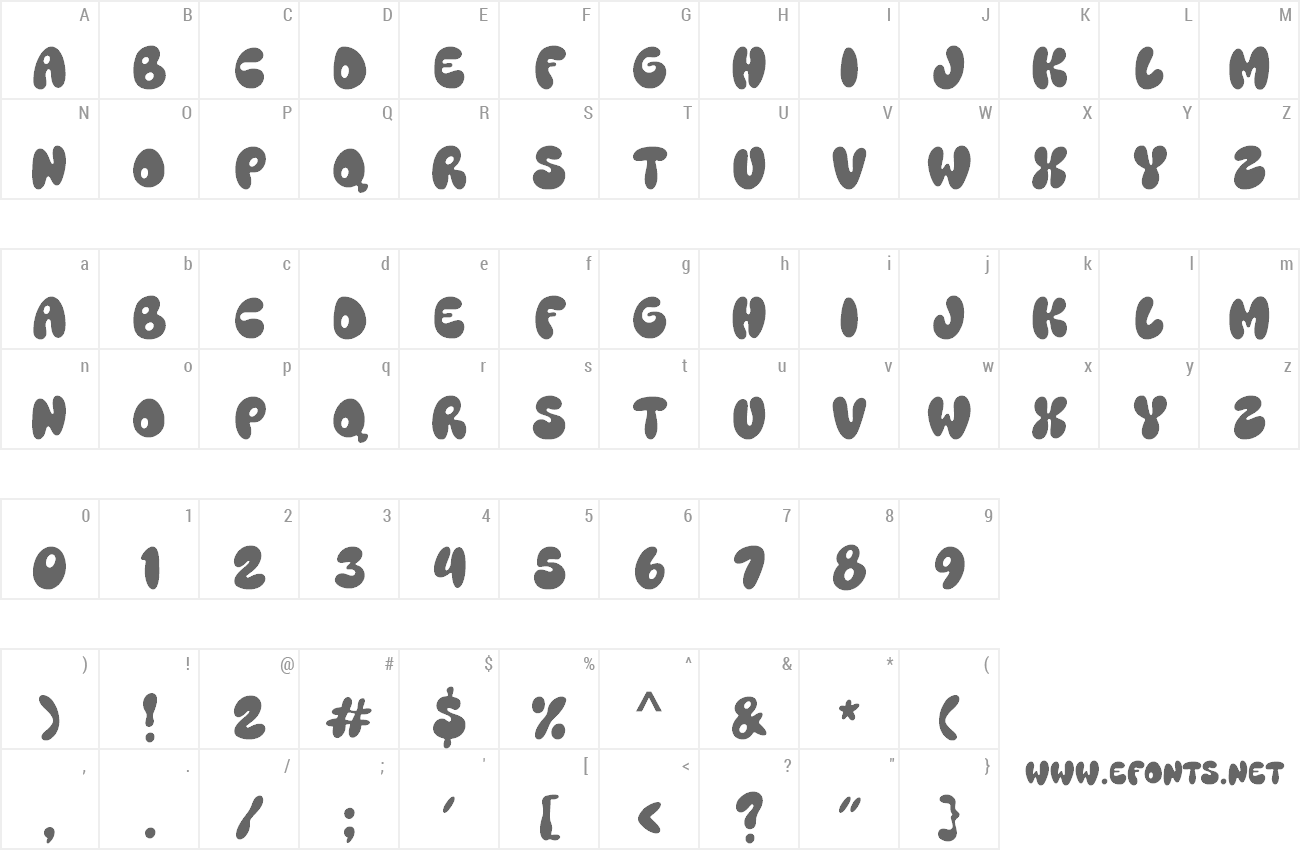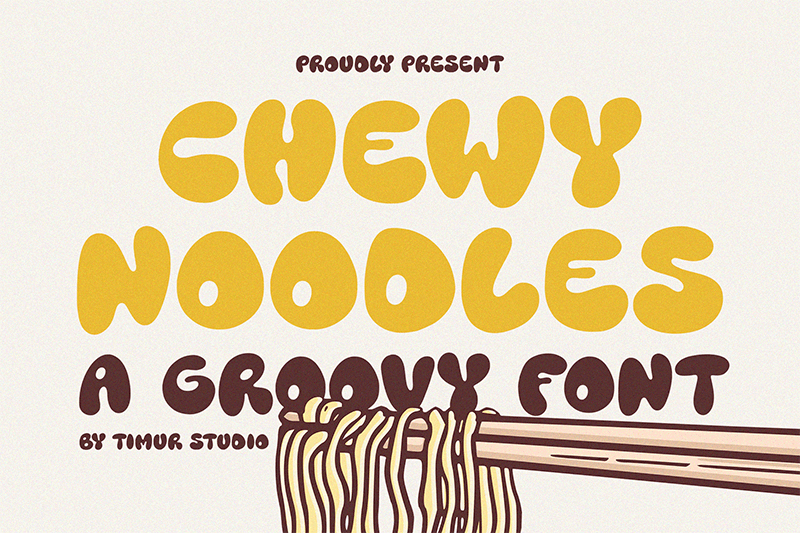
Introduced by Timurtype Studio! Chewy Noodles is a Groovy Font This font is a retro and vibrant choice for your design projects. With its funky and playful letterforms, this font captures the essence of the groovy era. The bold and exaggerated strokes give the Chewy Noodles font a lively and energetic aesthetic, perfect for adding a retro and nostalgic touch to your branding materials, posters, and album covers. Whether you're aiming for a vintage and psychedelic look or a fun and lighthearted vibe, the Chewy Noodles font offers versatility and charm. Embrace the groovy energy of the Chewy Noodles font and transport your designs back to the colorful and vibrant era of the past These fonts include: OTF TTF WOFF Chewy Noodles Font also supports multilingualism Chewy Noodles Font features premium : -Full Set of standard alphabet and punctuation By installing or using this font, you are agree to the Product Usage Agreement: � This demo font is ONLY for PERSONAL USE. NO COMMERCIAL USE ALLOWED! � Here is the link to purchase full version and commercial license: https://timurtype.com/product/chewy-noodles/ � For Corporate use you have to purchase Corporate license timurtype.studio@gmail.com More... |